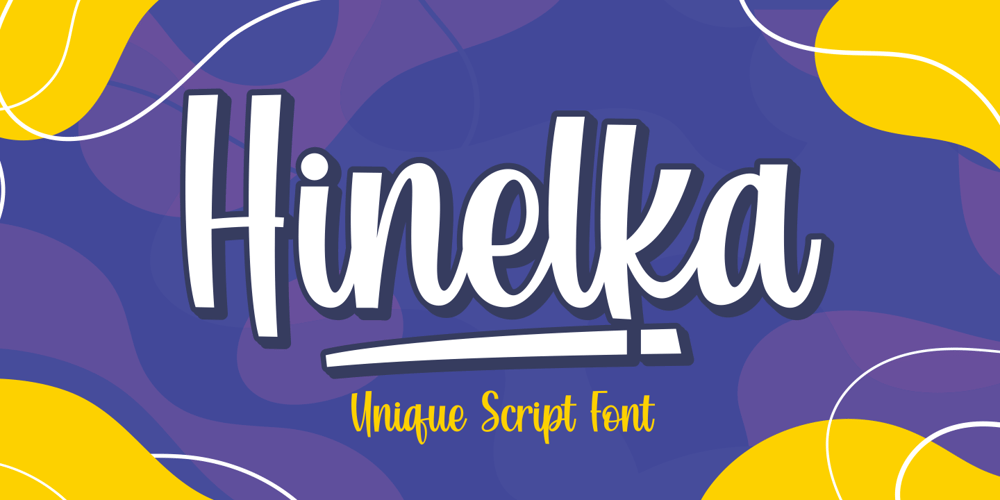
Hinelka
Hinelka font
Hinelka Font Family was designed by Riyadh Abuhafs and published by Awan Senja. Hinelka contains 1 styles and family package options. Introducing our newest cute serif typeface, Hinelka Unique Script. This font perfectly made to be in poster funny, and the other various formal forms such as invitations, labels, logos, magazines, books, packaging, fashion, make up, stationery, novels, labels or any type of advertising purpose.